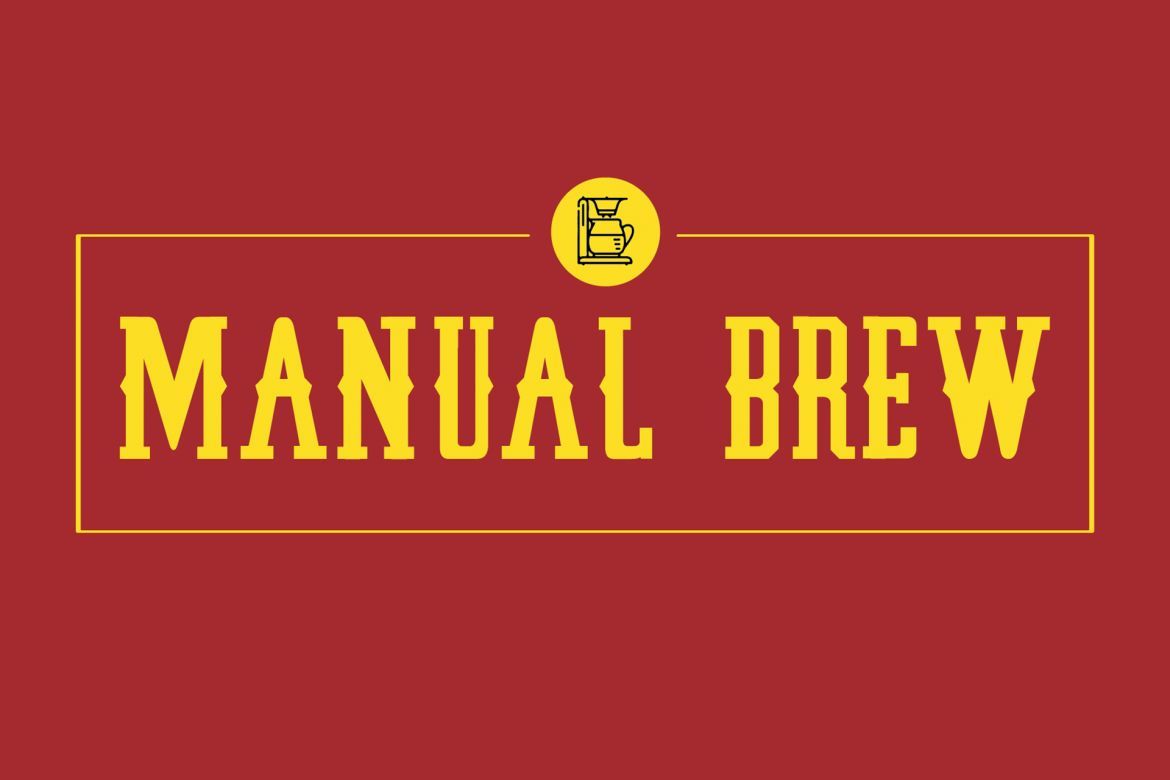
Brighford Display Font
Hello there, here is the new typeface called BRIGHTFORD. it's perfect for you to give your design an authentic touch. This stuff created by handcraft and original
• original hand drawn font
• perfect for use it on headline
• vintage strong font